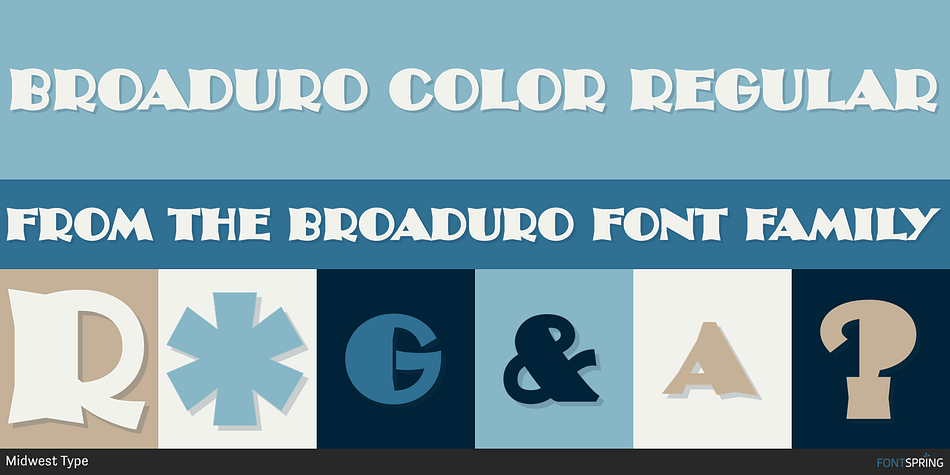
Broaduro Color Regular
Designed by Jesse R. Ewing, Broaduro is a display font family. This typeface has six styles and was published by Midwest Type.
Broaduro had its origins in type explorations based on cigar branding from the Caribbean region. Its skeleton is based on Morris Fuller Benton’s typeface Broadway (think of the Miami Vice logo). What I ended up with was a Latin-flavored take on Broadway, a sort of calligraphic Art Deco design. Outline, inset, and engraved stroke layers were incorporated as a reference to the cigar box and cigar label influences that inspired the project in the first place.